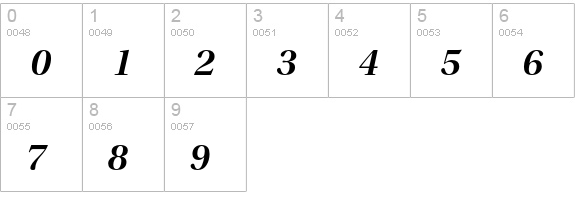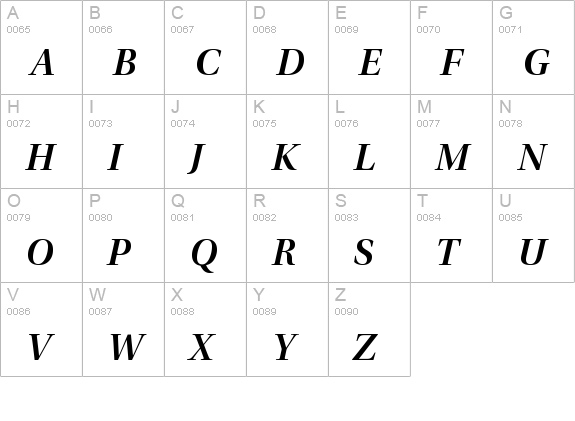
Utopia Std Semibold Display Italic Font Details
Utopia Std Semibold Display Italic is a sub-bold, structured, italic variant in the Utopia typeface family \xE2\x80\x94 well suited to sub-headlines and emphasised passages.
Utopia Std Semibold Display Italic is a font that effortlessly combines elegance and boldness in its design. With its sleek and slanted italic style, this font exudes a sense of sophistication and modernity. The characters in Utopia Std Semibold Display Italic are meticulously crafted, featuring clean and crisp lines that flow seamlessly from one letter to the next. Its semibold weight adds a touch of gravitas, making it perfect for headlines, titles, and emphasis. This font is not only visually striking, but it also offers great versatility. Whether you're working on a magazine layout, branding project, or website design, Utopia Std Semibold Display Italic will bring a touch of style and professionalism to your work. One of the best things about Utopia Std Semibold Display Italic is that it is freely available to download at FontsMarket.com. This means that you can easily access this font without any hassle or cost, making it a valuable asset for designers, creatives, and anyone in need of a high-quality typeface. So, if you're looking for a versatile and visually appealing font that combines elegance and boldness, look no further than Utopia Std Semibold Display Italic. With its freely available download at FontsMarket.com, you can add this font to your collection and elevate your designs to new heights.